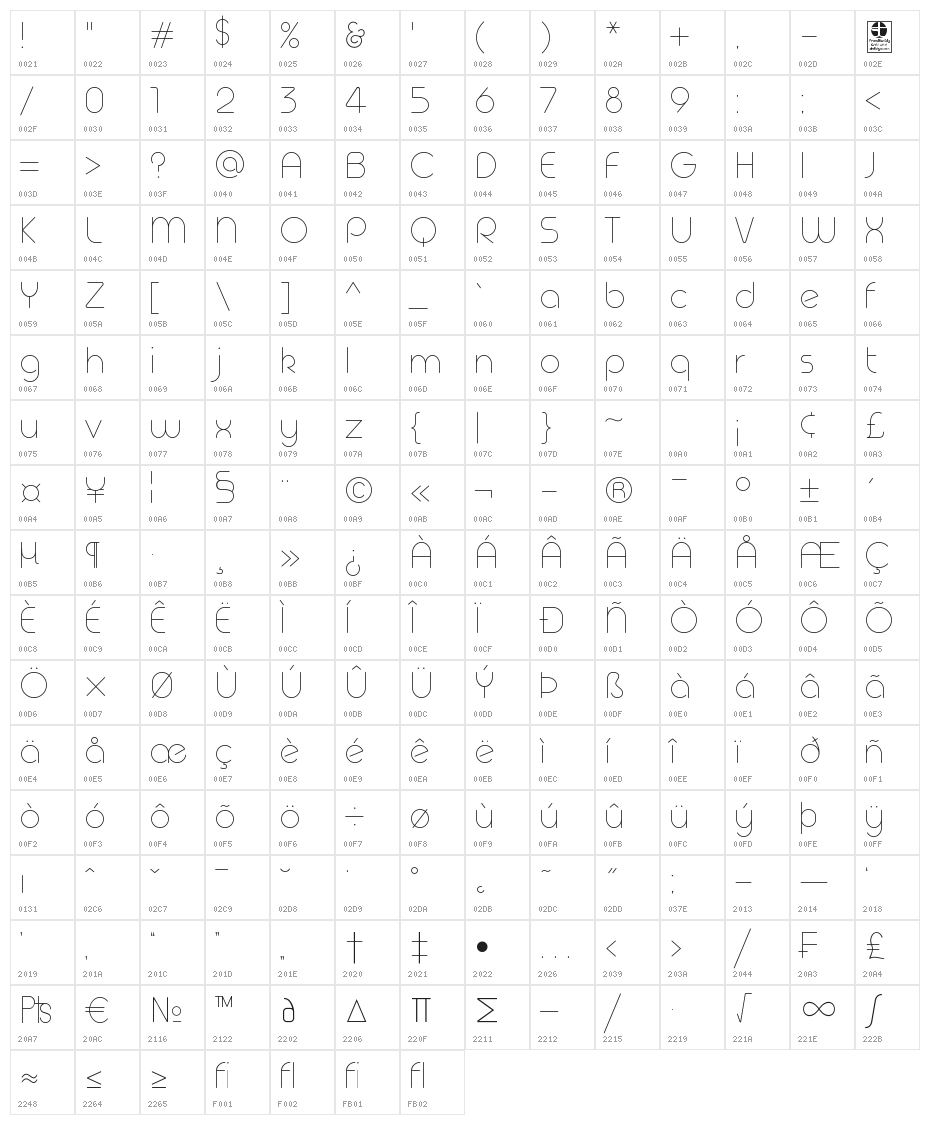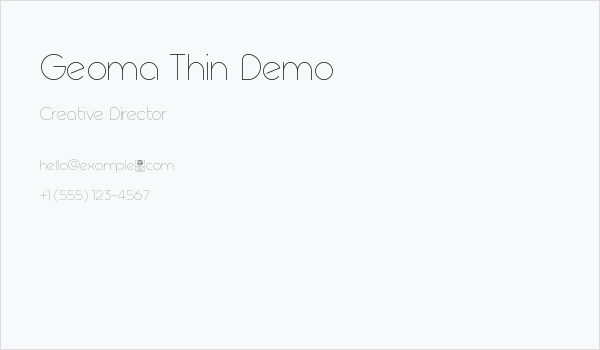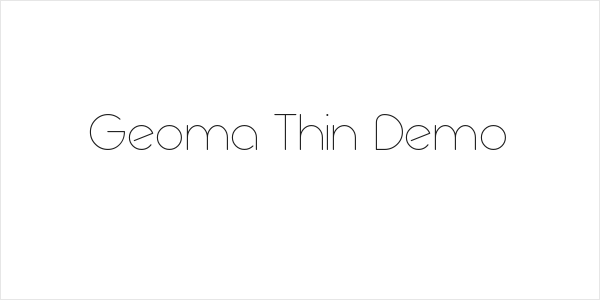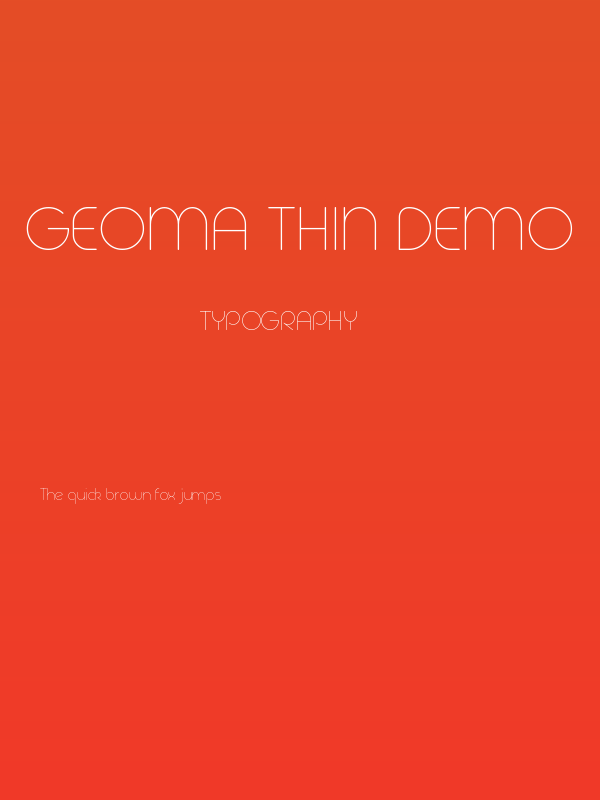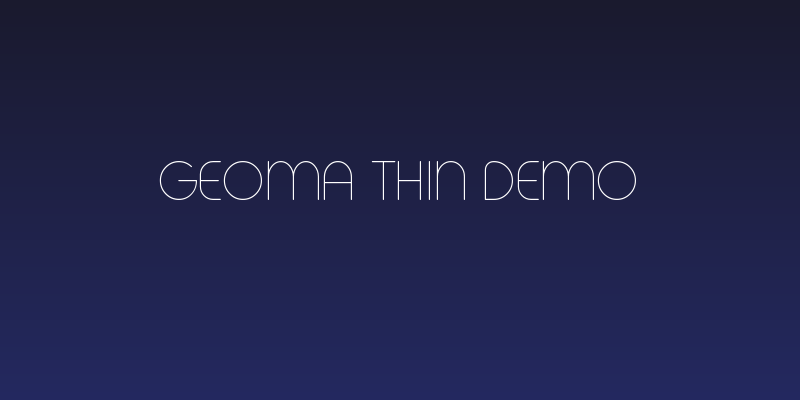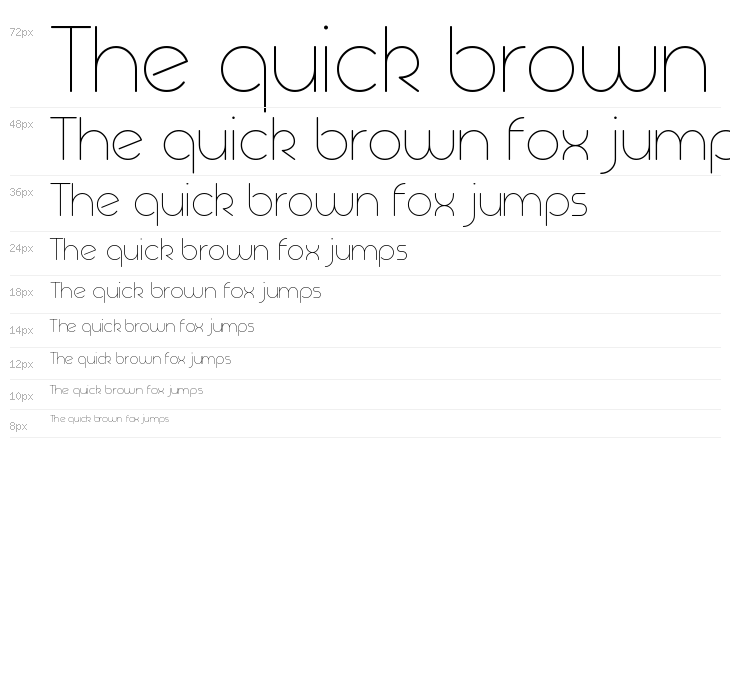
Geoma Thin Demo Font
Geoma Thin Demo Description
This font features a sleek, geometric design with thin, uniform lines that give it a modern and minimalist appearance. The characters are crafted with precision, showcasing a balance between curves and straight lines. The uppercase and lowercase letters maintain a consistent height, contributing to a clean and organized look. Numbers and special characters are designed with the same attention to detail, ensuring legibility and style. This font's simplicity and elegance make it suitable for a variety of design applications.